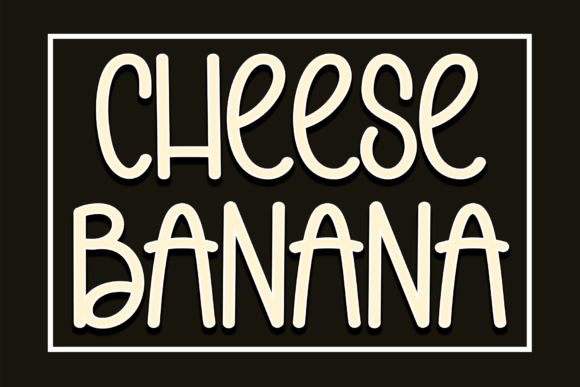
Unveil the Elegance: Cheese Banana Font - Your Gateway to Creative Expression
Welcome to the world of Cheese Banana Font, a captivating script font that exudes coolness and relaxation. This versatile creation by Creativewhitee is a stroke of genius, designed to bring a touch of natural charm to your creative endeavors.
With its smooth, flowing lines and playful curves, Cheese Banana Font evokes a sense of joy and lightheartedness. Its unpretentious style makes it an excellent choice for greeting cards, invitations, and personal notes, adding a personal touch that speaks volumes.
Step into a world of limitless possibilities with Cheese Banana Font. Its versatility extends beyond personal correspondence, making it an ideal choice for headlines, logos, posters, and branding materials. Whether you're creating content for social media, designing marketing campaigns, or simply adding a unique touch to your projects, this font is your trusted companion.
The beauty of Cheese Banana Font lies in its ability to transform ordinary words into works of art. Its handwritten charm infuses warmth and authenticity into your designs, creating a connection with your audience that transcends the digital realm.
Immerse yourself in the world of Cheese Banana Font and let your imagination run wild. Its user-friendly nature makes it accessible to designers of all levels, allowing you to effortlessly elevate your projects with minimal effort.
Indulge in the beauty of Cheese Banana Font and unlock the boundless potential of your creativity.